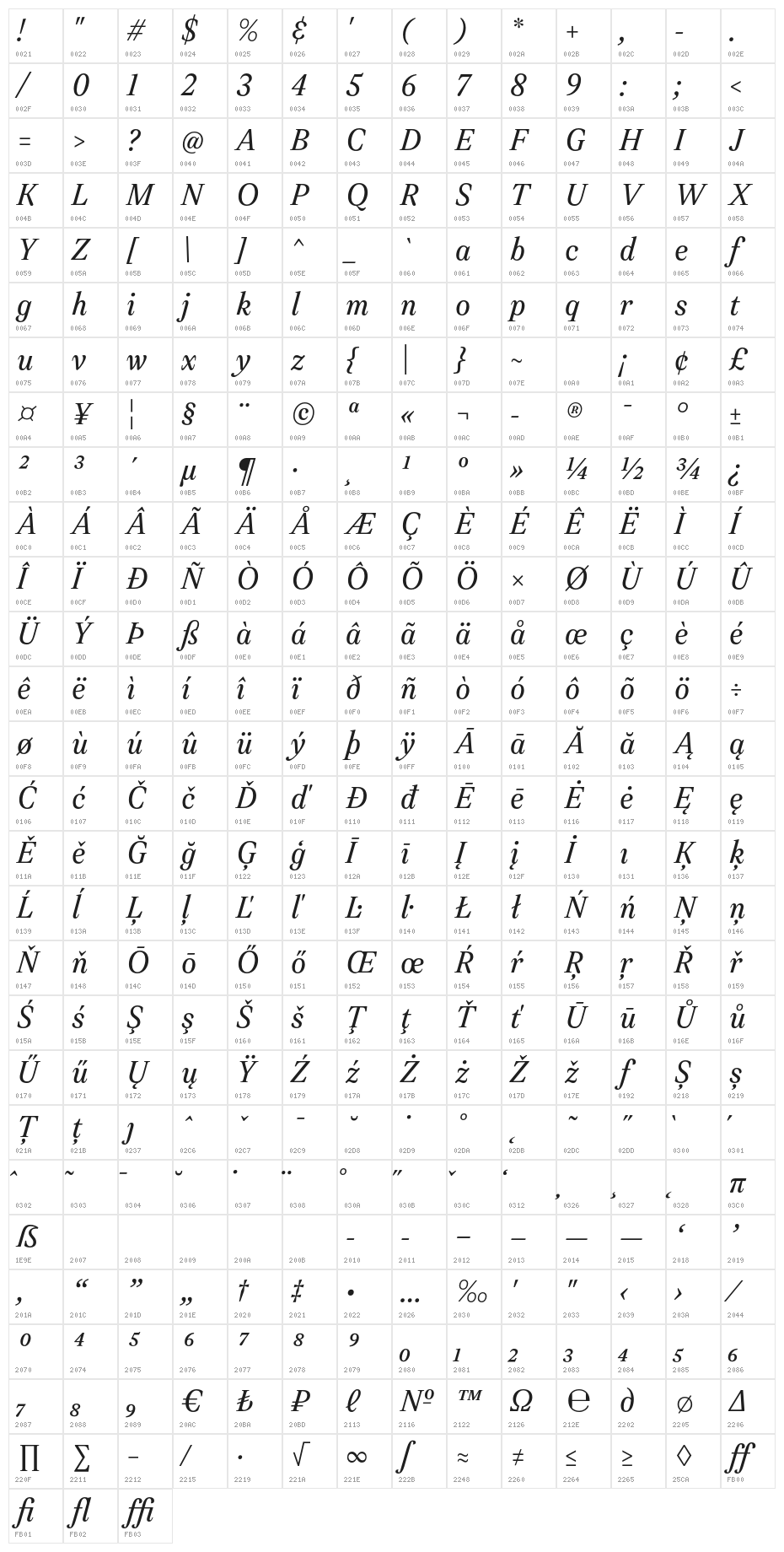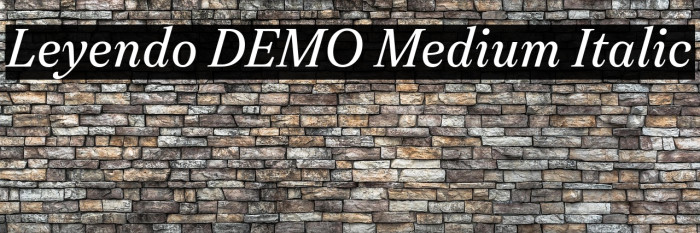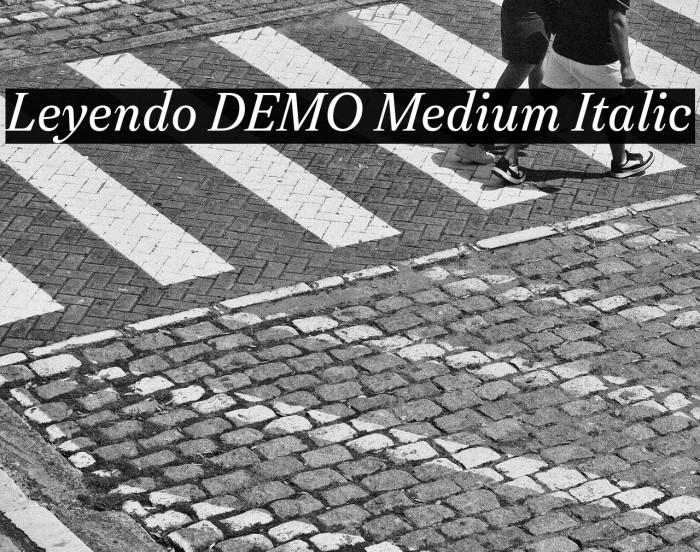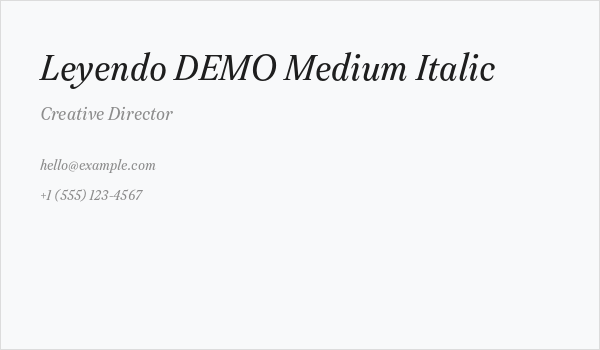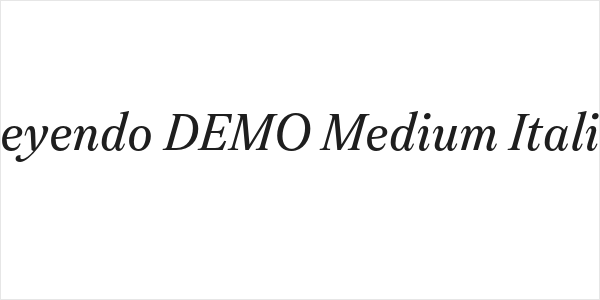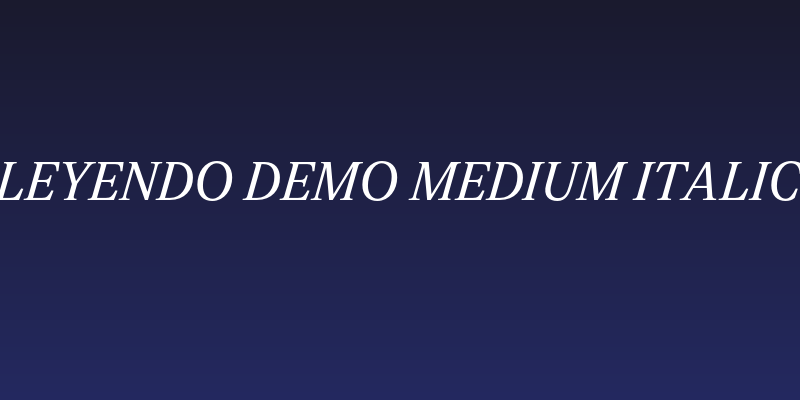
Leyendo DEMO Medium Italic Font
Leyendo DEMO Medium Italic Description
This font exhibits a refined and elegant style, characterized by its italicized form and medium weight. The letters have a classic serif design, with smooth curves and a slight slant that adds a sense of motion and sophistication. The uppercase letters are tall and commanding, while the lowercase letters maintain a balanced and harmonious appearance. The numerals are clear and distinct, ensuring readability. Special characters are thoughtfully designed, complementing the overall aesthetic. This font's medium contrast in stroke thickness enhances its legibility, making it suitable for various applications.